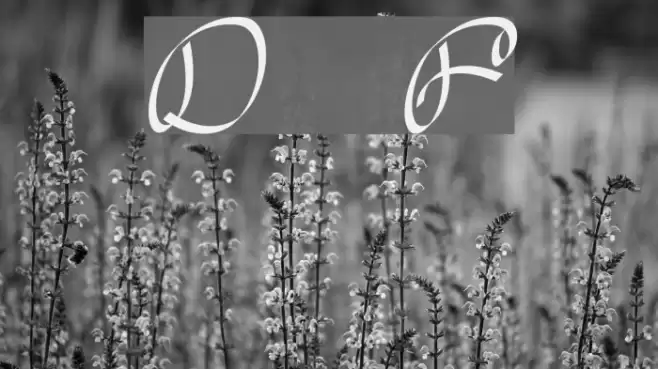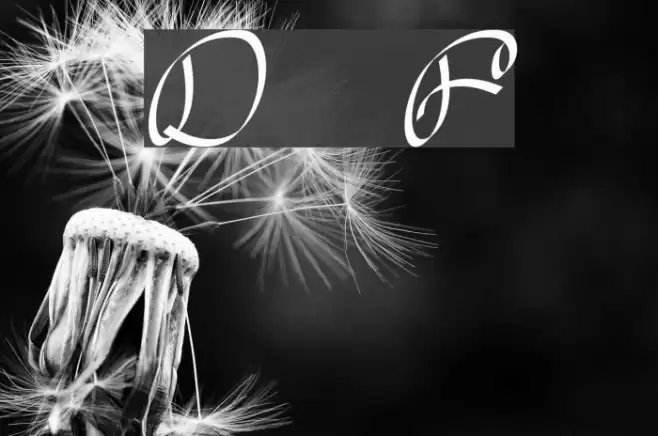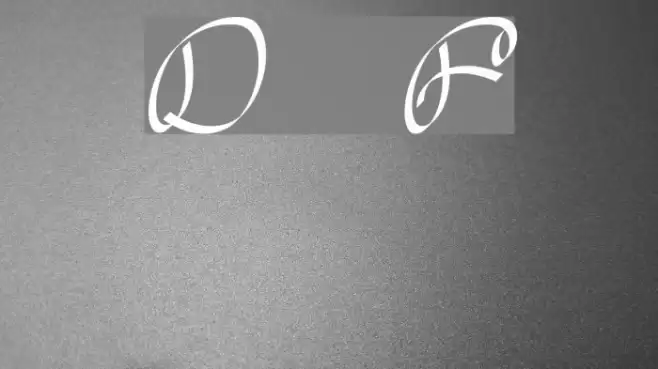
Daisy Font
Daisy Description
This font features an elegant and flowing script style, characterized by its ornate and decorative letterforms. The uppercase letters exhibit a graceful, cursive design with intricate loops and swashes, giving it a sophisticated and artistic appearance. The font's style is reminiscent of classic calligraphy, making it suitable for formal and decorative applications. The characters are well-balanced, with a consistent stroke width that adds to its readability despite the elaborate design. This font is ideal for projects that require a touch of elegance and refinement.
An elegant, flowing script font with ornate, decorative letterforms from Decorative fonts.
- Proposed Projects: Wedding invitations, luxury branding, greeting cards, formal event programs, and decorative signage.
- Overall Style: Classic
- Use Case: Logos, Headlines, Decorative text